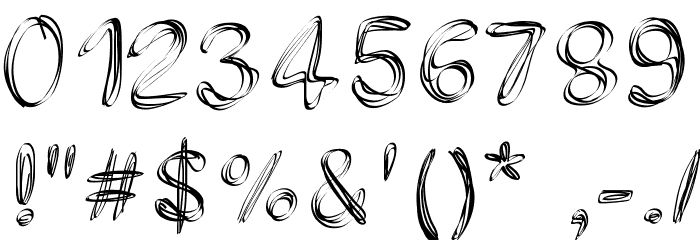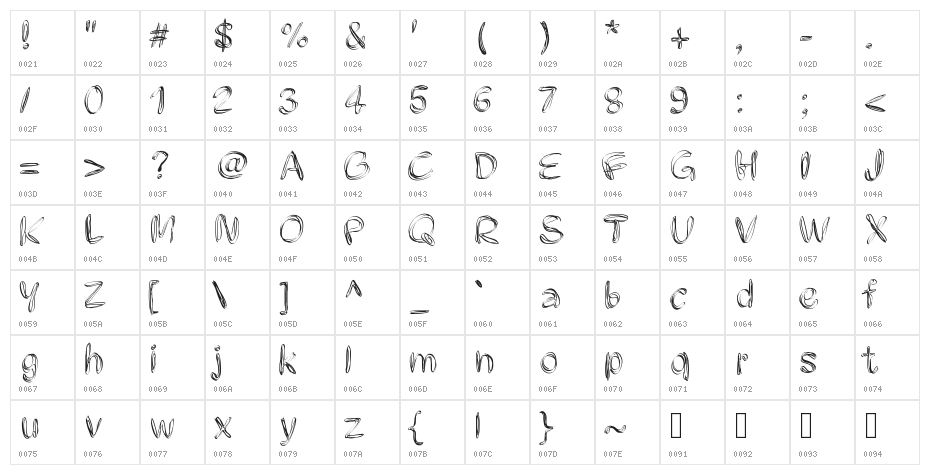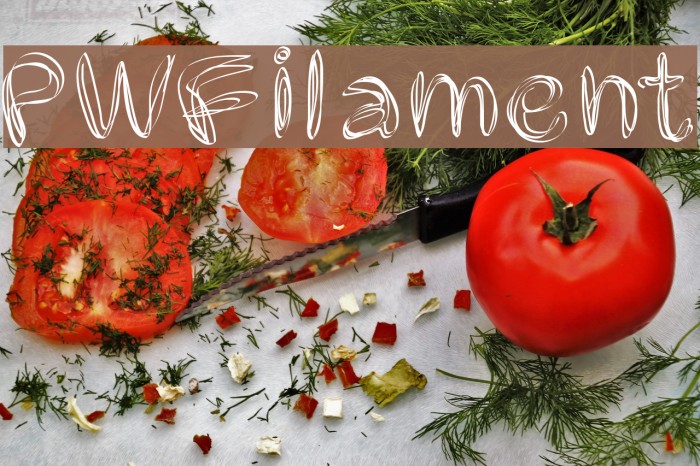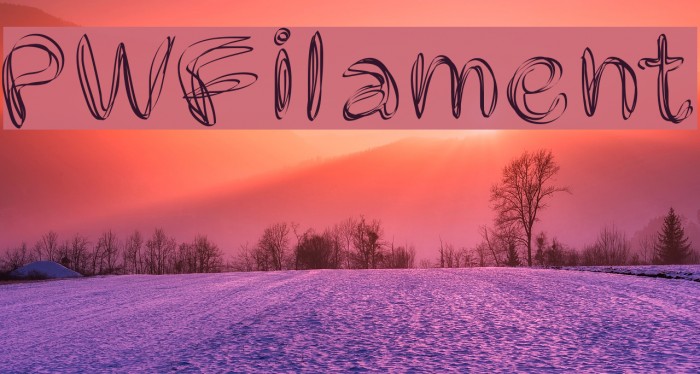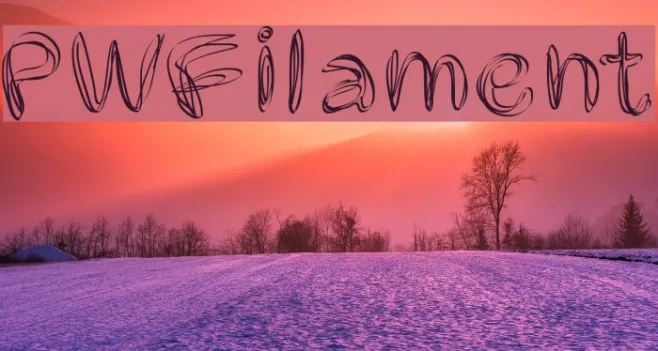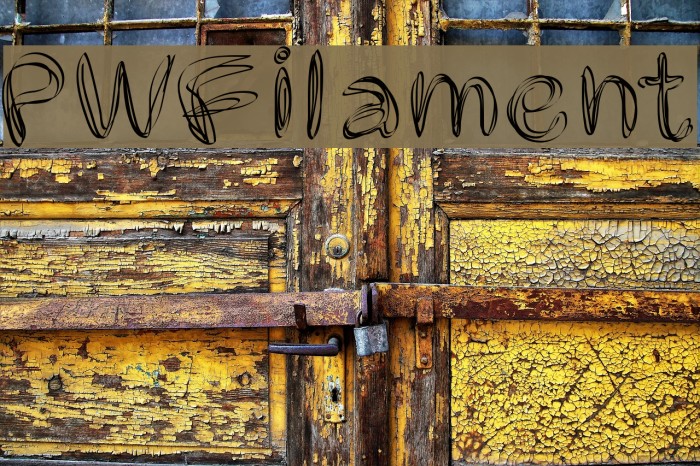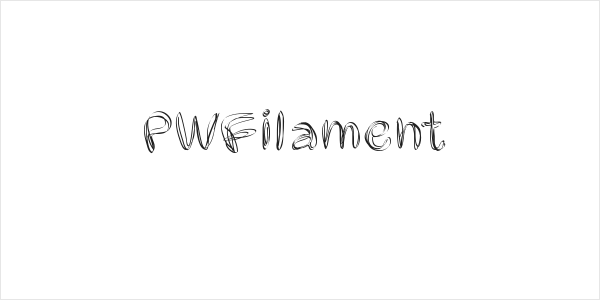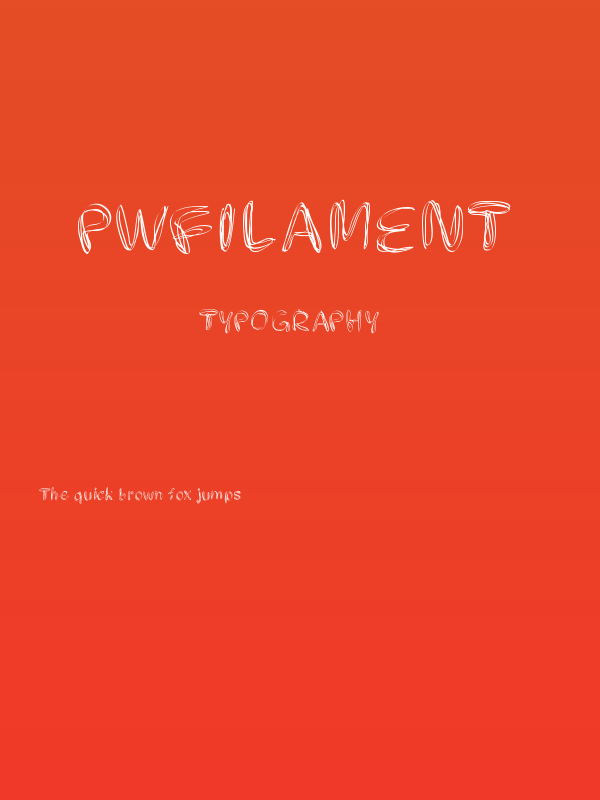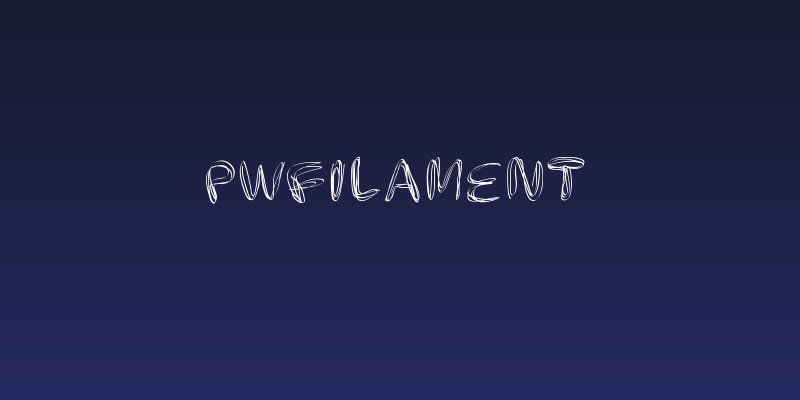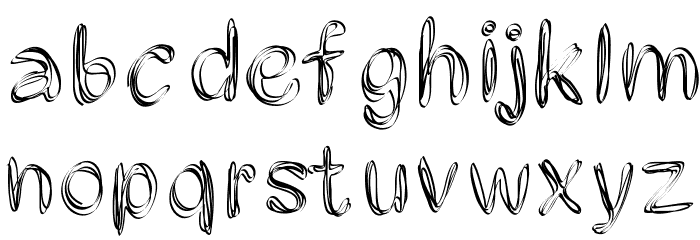
PWFilament Font
PWFilament Description
This font features a dynamic and energetic style, characterized by its sketch-like, hand-drawn appearance. Each character is composed of multiple overlapping strokes, giving it a textured and artistic feel. The letters are slightly irregular, adding to the handcrafted aesthetic. The uppercase and lowercase letters maintain a consistent style, with rounded edges and a playful, informal look. The numbers and special characters follow the same design principles, ensuring a cohesive appearance across all glyphs. This font's unique style makes it stand out, suitable for creative and expressive projects.
| Proposed Projects | Ideal for artistic projects, children's book covers, creative branding, and playful posters. |